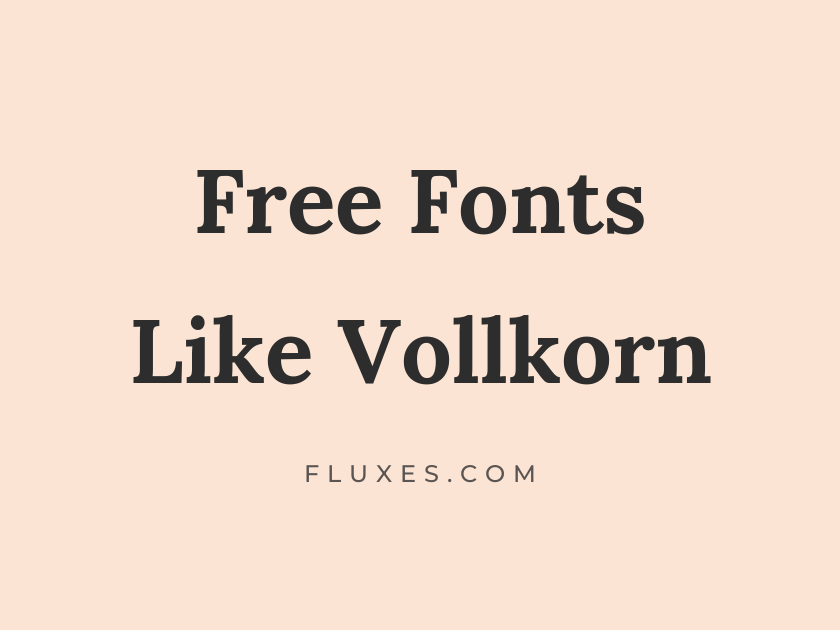
15 Best Free Fonts Similar to Vollkorn
Vollkorn built its reputation as one of the most dependable text serifs on Google Fonts, a sturdy, warm typeface designed by Friedrich Althausen specifically for long stretches of reading rather than flashy headlines. Its slightly heavy strokes, calm rhythm, and old-book character have made it a favorite for novels, essays, and editorial layouts that need to feel substantial without turning cold or overly formal. If you are hunting for free fonts similar to Vollkorn, the goal is usually the same: a serif that reads comfortably at body size, carries a bit of traditional weight, and still feels humane on screen.
The alternatives below share that same text-first sensibility. Some lean a little more literary, some a little more contemporary, but all of them hold up in paragraphs the way Vollkorn does, which is the real test for any book or editorial typeface.
1. Lora
A steady serif built for long, comfortable reading
Lora carries the same balanced, moderately contrasted letterforms that make Vollkorn so easy to sit with for pages at a time. Its curves are a touch softer and more contemporary, which makes it a natural pick for blogs and editorial sites that want warmth without leaning into old-fashioned book typography.
2. Bitter
Solid, grounded type for articles and reports
Originally drawn as a slab serif for screens, Bitter shares Vollkorn’s sturdiness and refuses to thin out or wobble at small sizes. It reads a little more mechanical and modern, so it suits technical writing, documentation, and long-form web content where clarity matters more than charm.
3. Crimson Pro
Set your next chapter in a classic book face
Crimson Pro was modeled on old-style book typefaces, and it shows in its generous x-height and gentle, unhurried rhythm. It pairs beautifully with a plain, understated interface, which makes it a strong choice for essays, memoirs, and anything meant to feel like a printed page.
4. Source Serif 4
Clean, dependable serif for editorial layouts
Adobe built this one to complement Source Sans, and the discipline shows: even strokes, restrained curves, and none of the eccentricities that can trip up a serif at small sizes. It is a safe, professional alternative when you want Vollkorn’s readability but a more neutral, corporate-friendly voice.
5. PT Serif
Reliable text serif for print and web alike
PT Serif was designed as part of a public project to serve both print and digital reading, and it carries that dual-purpose sturdiness in every letter. It lacks some of Vollkorn’s personality but makes up for it with rock-solid legibility in dense paragraphs and small captions.
6. Domine
Confident serif headlines with a book-like body
Built specifically with blogging in mind, Domine has thicker strokes and a slightly boxier structure than Vollkorn, giving headlines real presence. It stays composed at body text sizes too, so a single family can carry both your titles and your paragraphs without feeling mismatched.
7. Alegreya
Expressive serif made for storytelling and prose
Alegreya has more calligraphic energy than Vollkorn, with contrast that shifts and dances a bit as you read. It was designed for literature specifically, so if your project leans toward fiction, poetry, or narrative essays, this is worth pairing with a plainer sans for interface text.
8. Noto Serif
Neutral, dependable type for global content
Where Vollkorn has warmth and character, Noto Serif trades some of that personality for extraordinary language coverage and unwavering consistency. It is the pragmatic choice for multilingual publications or documentation sites where uniform rendering across scripts matters more than flair.
9. Literata
Made for reading screens, chapter after chapter
Google and the Bookmobile team originally built Literata for e-readers, so it was optimized from the start for exactly the kind of sustained, screen-based reading Vollkorn also handles well. Its slightly higher contrast and refined details give it a more literary, contemporary feel, especially in its lighter weights.
10. Spectral
A screen-first serif for articles and books
Spectral was commissioned specifically to solve the problem of serif text on screens, and it shows in how evenly it holds up from tiny footnotes to large pull quotes. It feels a bit more editorial and modern than Vollkorn, making it a good fit for online magazines and long-form journalism.
11. Piazzolla
Warm serif with a musical, flowing rhythm
Named after the composer, Piazzolla brings a lively, slightly humanist warmth to body text without sacrificing the sturdiness Vollkorn readers expect. Its variable weight range makes it flexible enough to handle both delicate captions and confident headlines in the same layout.
12. Gelasio
A grounded serif that quietly replaces Georgia
Gelasio was built to be metrically compatible with a familiar system serif, which makes it an easy, low-risk swap for teams migrating old layouts to web fonts. It shares Vollkorn’s unfussy, workmanlike character, favoring legibility over ornament at every size.
For headlines, consider pairing one of these serifs with a plain, restrained sans like Source Sans or Inter to keep the hierarchy clear.
If you need a variable font for performance, Spectral, Literata, and Piazzolla all offer variable weight axes worth exploring.
Any of these free Google Fonts options can stand in for Vollkorn without losing the calm, book-like readability that made the original so popular for long-form text.